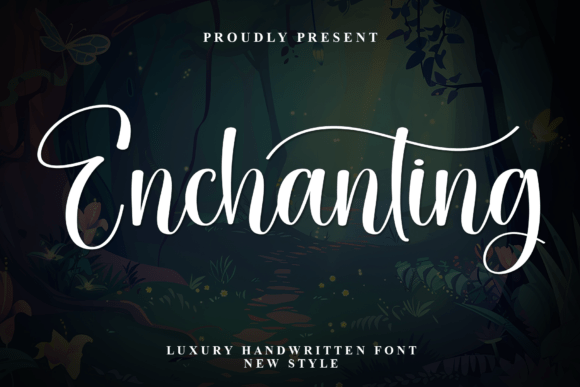
Step into the World of Enchanting Font
Have you ever found yourself scribbling notes in a worn journal, the pen gliding effortlessly across the page as the words flow from your mind to paper? That’s the magic of Enchanting Font, a luxury handwritten font that captures the fluid elegance of artistic penmanship. Designed to transport you to a world of refinement and whimsy, Enchanting Font is perfect for fantasy book covers, mystical branding, luxury event stationery, and artisanal product labels.
For designers, Enchanting Font offers a unique value proposition – the ability to add a touch of bespoke charm and dreamlike elegance to every project. Whether you’re designing for a boutique skincare line or a cinematic wedding invitation, Enchanting Font is the perfect choice to elevate your designs and leave a lasting impression.
Key Features of Enchanting Font
- Font Family: Enchanting Font is a unique, hand-drawn font family that includes 6 styles (Thin, Light, Regular, Medium, Bold, and Black) to cater to various design needs.
- Unique Characteristics: The Enchanting Font features a whimsical, hand-drawn design with subtle flourishes and ornaments, adding a touch of elegance and sophistication to any design project.
Enchanting Font Review
✨ The Enchanting Font has a beautiful, whimsical feel to it. I love how the letterforms dance across the page, creating a sense of magic and wonder. The font is perfect for any project that needs a touch of fantasy or romance.
✨ The font’s versatility is another standout feature. It comes in a range of weights and styles, from light and airy to bold and dramatic. This makes it easy to use in a variety of contexts, from book titles to advertising headlines.
⚠️ One of the main limitations of the Enchanting Font is its limited support for non-Latin scripts. If you need to use the font for languages other than English, you may find that it doesn’t support the necessary characters.
⚠️ Additionally, the font may not be suitable for projects that require a more modern or edgy look. The Enchanting Font is firmly rooted in traditional typography, which may make it feel a bit old-fashioned to some users.
The Enchanting Font is a beautiful, versatile font that is perfect for any project that needs a touch of magic and wonder. While it may have some limitations, these are easily outweighed by its many strengths. Overall, I would highly recommend the Enchanting Font to any designer looking for a unique and enchanting typeface.
- Beautiful, whimsical feel
- Perfect for fantasy or romance-themed projects
- Range of weights and styles
- Supports Latin scripts
Enchanting Font Practical Application Guide
Tips: Use Enchanting Font for headings and titles to add a touch of elegance to your design. Experiment with different font sizes and colors to create visual interest.
Tips: Use Enchanting Font for creative typography projects, such as posters or invitations. Experiment with layer styles and effects to add depth and dimension.
Tips: Use Enchanting Font for formal documents, such as resumes or presentations. Experiment with font combinations and sizes to create a professional look.
Enchanting Font is perfect for:
- Formal events and announcements
- Creative typography projects
- Branding